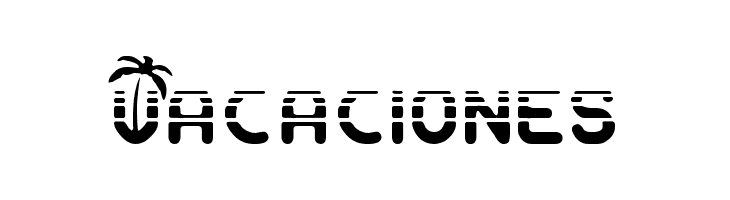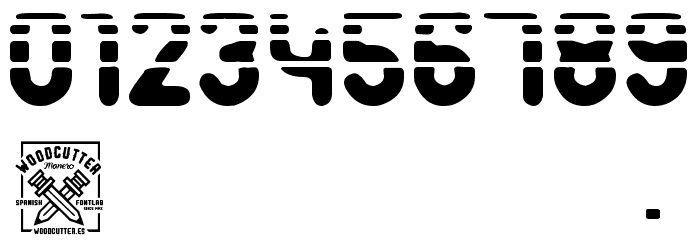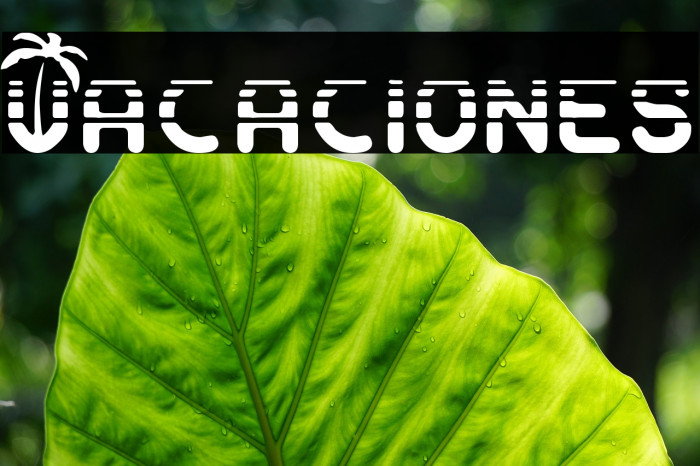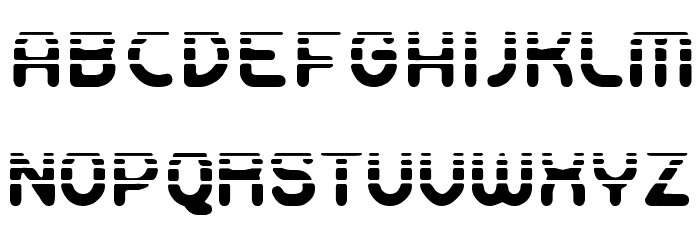
Vacaciones Font
Vacaciones Description
This playful and decorative font features a unique design with palm tree motifs integrated into the uppercase letters, giving it a tropical and vacation-like feel. The characters are bold and rounded, with a stencil-like appearance that adds a sense of fun and creativity. The font is highly stylized, making it ideal for projects that require a distinctive and eye-catching typeface. Its boldness ensures readability while the decorative elements add a touch of whimsy.
A bold, decorative font with palm tree motifs and a stencil-like design from Decorative fonts.
- Proposed Projects: Ideal for travel brochures, beach-themed event posters, summer party invitations, and any project needing a tropical or vacation vibe.